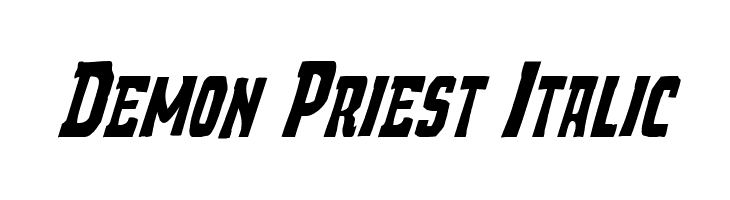
An ornate and decorative font with elaborate swirls and flourishes.
A playful, hand-drawn font with tall, narrow characters and a whimsical style.
A jagged, horror-themed font with sharp, irregular strokes.
A bold, 3D italic font with a dynamic and energetic style.
A bold, 3D geometric font with a vintage flair.
A bold, condensed font with a rugged, distressed appearance.
A bold, condensed, and italicized font with dynamic angles.
A bold, modern font with sharp angles and a strong presence.
A bold, expanded, and italicized font with dynamic and angular characters.
A bold, italicized font with a striped gradient effect and a modern, dynamic style.